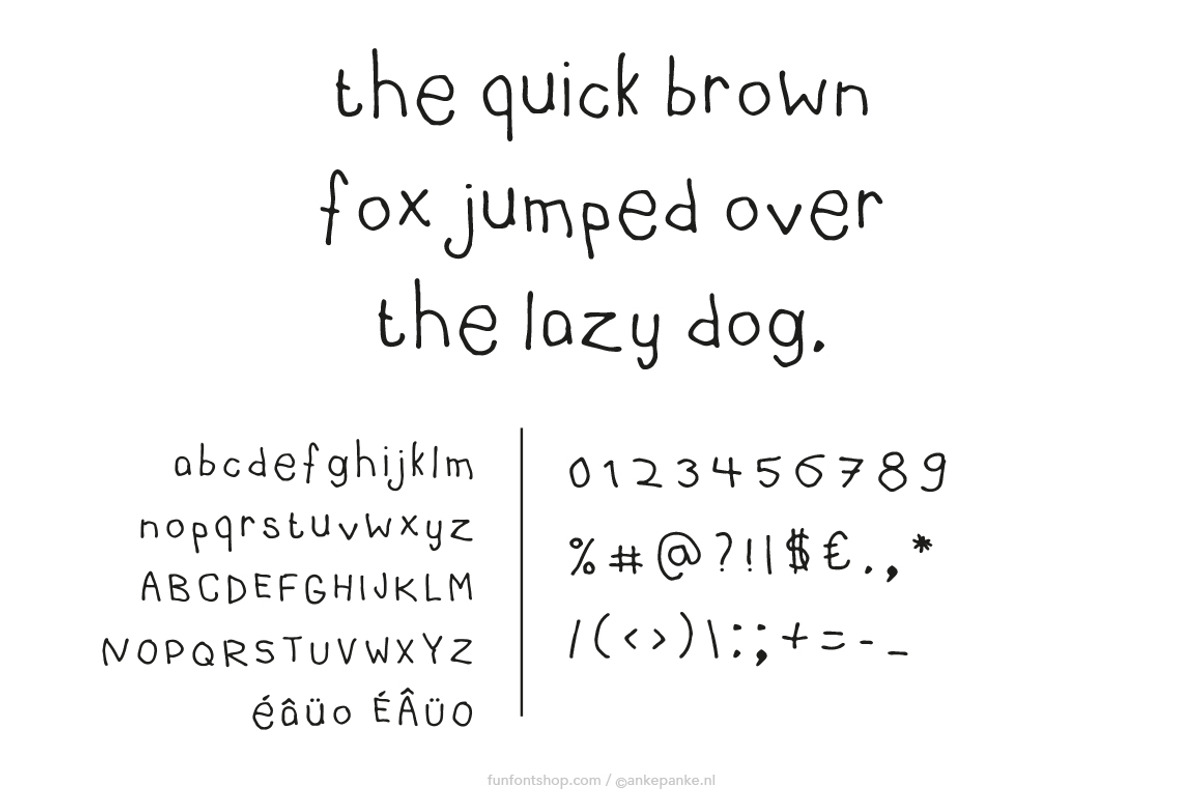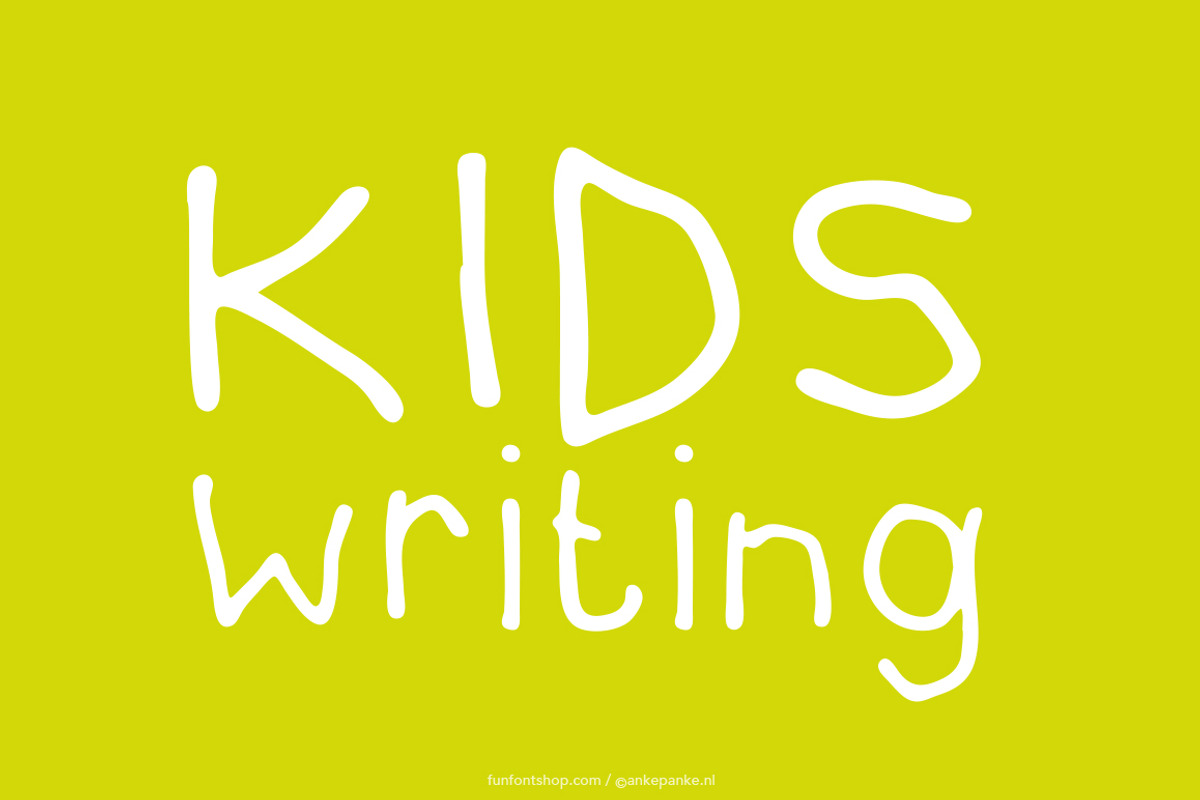
Kids writing font
This font was first draw by hand (with my non-dominant hand), scanned, vectorized and converted to a OTF file so you type with it.
- Letters Uppercase and numbers
- Also Letters with accents (ü,î,ç,é,å,ò,œ, etc)
- Punctuation !?#%;*±+=-_,.:;'"/|¢£€$©®@([])